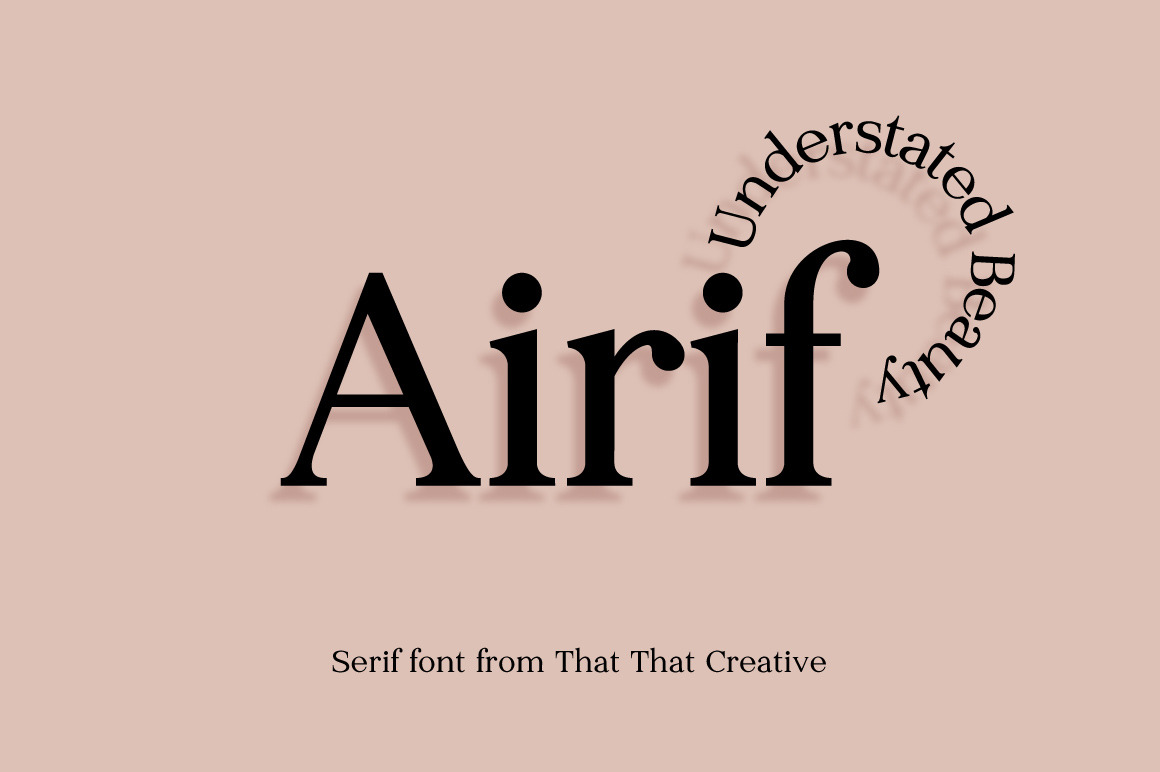
SALE: Airif - Serif Font
Airif serif font is all about understated beauty. Not trying to be a hero. this modern serif is perfect for giving your body copy and headlines just enough personality. The beauty of traditional letterforms speaks for itself. Airif comes in two styles. One with a tight spacing for display and another with a looser spacing for body copy.
- Letters, Numbers, Punctuation, Arrows
- Over 230 characters
- Two styles Display and text